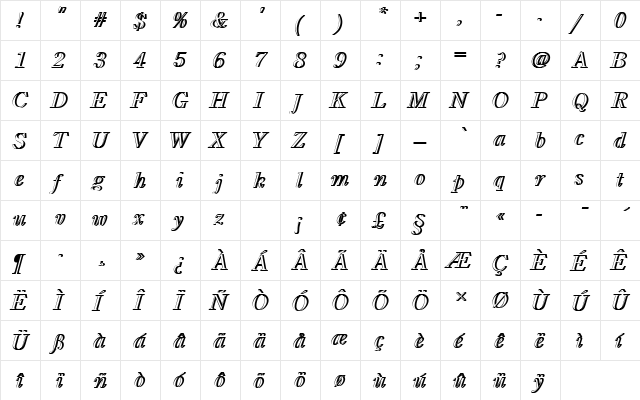
CenturyOldStyTRegItaRe1 Regular
Design Context for CenturyOldStyTRegItaRe1 Typeface
CenturyOldStyTRegItaRe1 offers clean, dependable letterforms without strong stylistic allegiance, making it a practical choice for designers who need flexibility.
Pro Tip: Use CenturyOldStyTRegItaRe1 in both headline and body roles to test its range before committing to a single application.